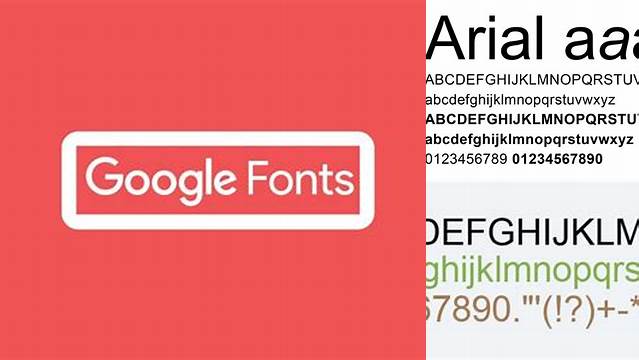
Arial Font Download: A Comprehensive Guide
Introduction: Understanding the Importance of Font Choice
Hey guys! Let's talk about something super important yet often overlooked in the world of design and content creation: fonts. Specifically, we're diving deep into the world of Arial, a typeface that's practically a household name. Now, you might be thinking, "Why should I care about Arial? It's just a font, right?" Well, not quite! The font you choose can significantly impact how your message is perceived. A good font can enhance readability, convey the right tone, and even improve your SEO. Think of fonts as the voice of your text – they communicate personality and professionalism. In this comprehensive guide, we'll explore everything you need to know about Google Fonts Arial download, its history, usage, and why it remains a popular choice even today. So, buckle up and let’s get started!
When you're selecting a font, you're essentially choosing the visual personality of your text. Arial, with its clean lines and sans-serif design, projects a sense of modernity and clarity. Imagine using a very ornate, script-like font for a technical manual – it would be a readability nightmare! Arial, on the other hand, ensures that your content is easily digestible. But the importance goes beyond just readability. The right font can also influence the user's perception of your brand or message. A serious, professional font like Arial can build trust and credibility, while a more playful font might be suitable for a children's website or a creative project. The key is to align your font choice with your overall message and target audience. We’ll delve into specific examples of how Arial can be used effectively across various platforms and projects. We’ll also discuss how to properly download and implement Arial from Google Fonts, ensuring you have the correct licensing and usage rights. Trust me, choosing the right font is like picking the perfect outfit for a special occasion – it makes all the difference!
Furthermore, let's not forget the technical aspects. Fonts can impact your website's performance and SEO. A poorly optimized font can slow down your page load time, which can negatively affect your search engine rankings. Google Fonts, including Arial, are designed to be web-optimized, ensuring that your site remains fast and efficient. This is a crucial factor, especially considering that Google prioritizes fast-loading websites in its search results. We’ll also touch on some common font-related issues and how to troubleshoot them. Ever had a font display incorrectly or not load at all? We’ll cover those scenarios and provide practical solutions. So, stick around as we unravel the intricacies of Arial and how you can leverage it to enhance your projects. Remember, the devil is in the details, and when it comes to design, fonts are a detail that can make or break your work. We're here to make sure you get it right!
What is Arial and Its History?
So, what exactly is Arial? Well, it's a sans-serif typeface designed by Patricia Saunders and Robin Nicholas in 1982 for Monotype Typography. Now, that might sound like a dry history lesson, but trust me, the story behind Arial is quite interesting and relevant to its widespread use today. Arial was initially created as a cost-effective alternative to Helvetica, a hugely popular typeface known for its clean and neutral appearance. At the time, Helvetica was licensed, which meant that companies had to pay to use it. Arial offered a similar aesthetic but without the licensing fees, making it an attractive option for Microsoft, which bundled it with Windows. This decision played a significant role in Arial's ubiquity. Think about it: how many times have you seen Arial in documents, websites, and presentations? It's everywhere! But the history doesn't stop there. The design of Arial itself has sparked some debate and controversy, particularly among typography enthusiasts. Some argue that Arial is too similar to Helvetica, while others point out subtle differences that give it its own unique character. We'll explore these nuances and comparisons, helping you understand the design elements that set Arial apart. Understanding the history of Arial gives us valuable context for its usage and impact. It's not just a font; it's a product of its time and the needs of the industry. And that’s pretty cool, right?
Delving deeper into the design aspects, Arial's sans-serif nature means it lacks the small decorative strokes (serifs) found in fonts like Times New Roman. This gives it a cleaner, more modern look, which is why it's often used in digital environments. The absence of serifs also contributes to its readability on screens, making it a popular choice for websites and applications. But what are the specific design features that make Arial, well, Arial? It’s the subtly angled terminals (the ends of the strokes), the slightly wider proportions, and the overall rhythm of the letters. These elements combine to create a typeface that is both legible and aesthetically pleasing. We'll take a closer look at these design features and compare them to Helvetica, highlighting the subtle yet important differences. This will give you a better appreciation for the artistry that goes into typeface design. It's not just about making letters look good; it's about creating a cohesive and functional system of visual communication. And Arial, despite its controversies, has proven to be a highly functional and versatile typeface. So, next time you see Arial, remember the history and the design principles behind it. It's a story of innovation, practicality, and a bit of controversy, all rolled into one font!
Let's also consider the impact Arial has had on the design landscape. Its widespread adoption has made it a standard font across various platforms, which means it's a safe bet when you need to ensure your content displays correctly for everyone. But this ubiquity also comes with its own set of challenges. Some designers argue that Arial has become overused and lacks originality. However, its neutrality and clarity make it a reliable choice for projects where readability is paramount. We'll discuss the pros and cons of using Arial in different contexts, helping you make informed decisions about your font choices. The goal here is not to say that Arial is the best font for every situation, but to provide a balanced perspective on its strengths and weaknesses. By understanding the history, design, and impact of Arial, you can use it effectively and avoid common pitfalls. So, whether you're a seasoned designer or just starting out, this knowledge will empower you to make smarter choices about typography. And remember, fonts are like spices – use them wisely to add flavor to your creations!
Best Practices for Using Arial
Alright, you've got Arial downloaded and installed, which is fantastic! But now comes the crucial part: using it effectively. Just like any tool, Arial can be incredibly powerful when used correctly, but it can also lead to underwhelming results if not handled with care. So, let's dive into some best practices for using Arial in your designs and projects. First and foremost, consider the context. Arial is a highly versatile font, but it's not a one-size-fits-all solution. It excels in situations where clarity and readability are paramount, such as body text, reports, and presentations. Its clean, sans-serif design makes it easy on the eyes, especially in longer blocks of text. However, it might not be the best choice for situations where you want to convey a strong sense of personality or character. For example, if you're designing a logo for a vintage-inspired brand, Arial might feel too modern and sterile. In those cases, you might want to explore more decorative fonts or serif typefaces. The key is to match the font to the overall tone and message of your project. Think about what you want your text to communicate beyond the words themselves. Does it need to feel professional and trustworthy? Or playful and creative? Your font choice should reflect that.
Another important aspect to consider is font hierarchy. This refers to the way you use different font sizes, weights, and styles to create a visual structure in your text. For example, you might use a larger, bolder font for headings and subheadings to make them stand out, and a smaller, regular weight font for the body text. Arial offers several weights, including Regular, Bold, and Black, which can be used to create a clear hierarchy. You can also use Italic for emphasis, but be careful not to overuse it, as too much italic text can become difficult to read. The goal is to guide the reader's eye through the text in a logical and intuitive way. A well-defined font hierarchy makes your content more accessible and engaging. It also helps to break up long blocks of text and prevent reader fatigue. Experiment with different font sizes and weights to see what works best for your specific layout. There's no magic formula, but a good starting point is to use a larger font size for headings (e.g., 18-24 points) and a smaller font size for body text (e.g., 10-12 points). Adjust these sizes as needed to create a visually balanced and harmonious design. Remember, typography is an art, and it takes practice to master. But by understanding the principles of font hierarchy, you'll be well on your way to creating professional-looking designs.
Let's also talk about font pairing. While Arial is a versatile font, it often looks best when paired with other typefaces. Choosing the right font pairing can elevate your design and create a more visually interesting layout. A common approach is to pair a sans-serif font like Arial with a serif font for headings. This creates a nice contrast and adds a touch of elegance to your design. Some popular serif fonts that pair well with Arial include Times New Roman, Georgia, and Merriweather. However, there are no hard and fast rules when it comes to font pairing. You can also pair Arial with other sans-serif fonts, as long as they have distinct characteristics. For example, you might pair Arial with Open Sans or Roboto, which have slightly different shapes and proportions. The key is to create a visual balance and avoid using fonts that are too similar, as this can create a sense of monotony. Experiment with different font pairings and see what resonates with you. There are also many online tools and resources that can help you find complementary fonts. Don't be afraid to try new things and push the boundaries of your creativity. Typography is a powerful tool, and by mastering the art of font pairing, you can create designs that are both visually appealing and highly effective. And that, my friends, is the ultimate goal! So go forth and create some typographic magic!
Common Mistakes to Avoid with Arial
Now that we've covered the best practices for using Arial, let's flip the script and talk about some common mistakes to avoid. Knowing what not to do is just as important as knowing what to do, especially when it comes to typography. Arial, despite its versatility, can easily fall victim to misuse if you're not careful. One of the biggest mistakes is overusing it. Because Arial is so ubiquitous, it can sometimes feel a bit bland or generic if it's the only font you use across your entire design. Imagine a website where every heading, every paragraph, and every button is in Arial. It might be perfectly readable, but it's also likely to be visually uninteresting. The key is to use Arial strategically, in combination with other fonts that add personality and visual flair. Think of Arial as a reliable workhorse – it's great for getting the job done, but it might not be the star of the show. Use it for body text and other areas where clarity is paramount, but don't be afraid to experiment with different fonts for headings, subheadings, and other key elements. This will add visual interest and prevent your design from feeling too monotonous.
Another common mistake is using too many different styles and weights of Arial. While it's important to create a font hierarchy, overdoing it can lead to a cluttered and confusing design. Imagine a document where the headings are in Arial Bold, the subheadings are in Arial Italic, and the body text is in Arial Regular, but then there are also random words in Arial Bold Italic for emphasis. It's a typographic mess! The general rule of thumb is to stick to a maximum of three different styles or weights of a font within a single design. This helps to maintain a sense of consistency and visual harmony. If you need to add emphasis, consider using other techniques, such as color or spacing, instead of adding yet another font style. The goal is to create a clear and intuitive visual hierarchy without overwhelming the reader. Remember, less is often more when it comes to typography. A clean and simple design is usually more effective than a cluttered and complex one. So, resist the urge to go overboard with font styles and weights. Choose a few key variations and use them consistently throughout your design. Your readers (and your eyes!) will thank you for it.
Finally, let's talk about kerning and tracking. These are two typographic terms that refer to the spacing between letters. Kerning is the adjustment of space between individual letters, while tracking is the uniform adjustment of space between all letters in a word or line. Poor kerning and tracking can make your text look uneven and difficult to read. With Arial, it's especially important to pay attention to these details, as its clean lines can sometimes make spacing issues more noticeable. For example, the space between the letters "A" and "V" in Arial can sometimes appear too wide, creating a visual gap. To fix this, you'll need to manually adjust the kerning in your design software. Most design programs, such as Adobe InDesign and Illustrator, have kerning and tracking controls that allow you to fine-tune the spacing between letters. Take the time to learn how these controls work and experiment with different settings. Even small adjustments can make a big difference in the overall appearance of your text. And remember, good typography is all about the details. By avoiding these common mistakes and paying attention to the nuances of kerning and tracking, you can ensure that your Arial-based designs look polished, professional, and highly readable. So, go forth and create some beautiful typography – but do it wisely!
Conclusion: Arial - A Timeless Choice
So, there you have it! A comprehensive guide to Google Fonts Arial download, its history, best practices, and common mistakes to avoid. We've covered a lot of ground, from the origins of Arial to its widespread use in various design contexts. By now, you should have a solid understanding of what Arial is, how to download it, and how to use it effectively in your projects. But the big question remains: is Arial a good choice for your designs? The answer, as with most things in design, is it depends. Arial is a versatile and reliable font that excels in situations where clarity and readability are paramount. It's a great choice for body text, reports, presentations, and other applications where you need a clean and neutral typeface. However, it's not always the best choice for situations where you want to convey a strong sense of personality or character. In those cases, you might want to explore other fonts that better match the tone and message of your project. The key is to choose the right tool for the job. And Arial, when used strategically, can be a valuable asset in your typographic toolkit.
Ultimately, the best font choice is the one that effectively communicates your message and enhances your design. Arial has stood the test of time for a reason – it's a functional and versatile typeface that works well in a wide range of contexts. But that doesn't mean it's the only option. Don't be afraid to experiment with different fonts and font pairings to find what works best for you. Typography is a creative process, and the more you explore, the more you'll learn about what makes a design truly sing. And remember, good typography is not just about choosing a pretty font. It's about creating a visual hierarchy, ensuring readability, and conveying the right tone and message. It's about making your text not just seen, but truly read and understood. So, go forth and create some amazing designs – armed with your knowledge of Arial and your passion for typography. The world is waiting to see what you'll create! And who knows, maybe Arial will be the perfect choice for your next masterpiece. Until then, happy designing!